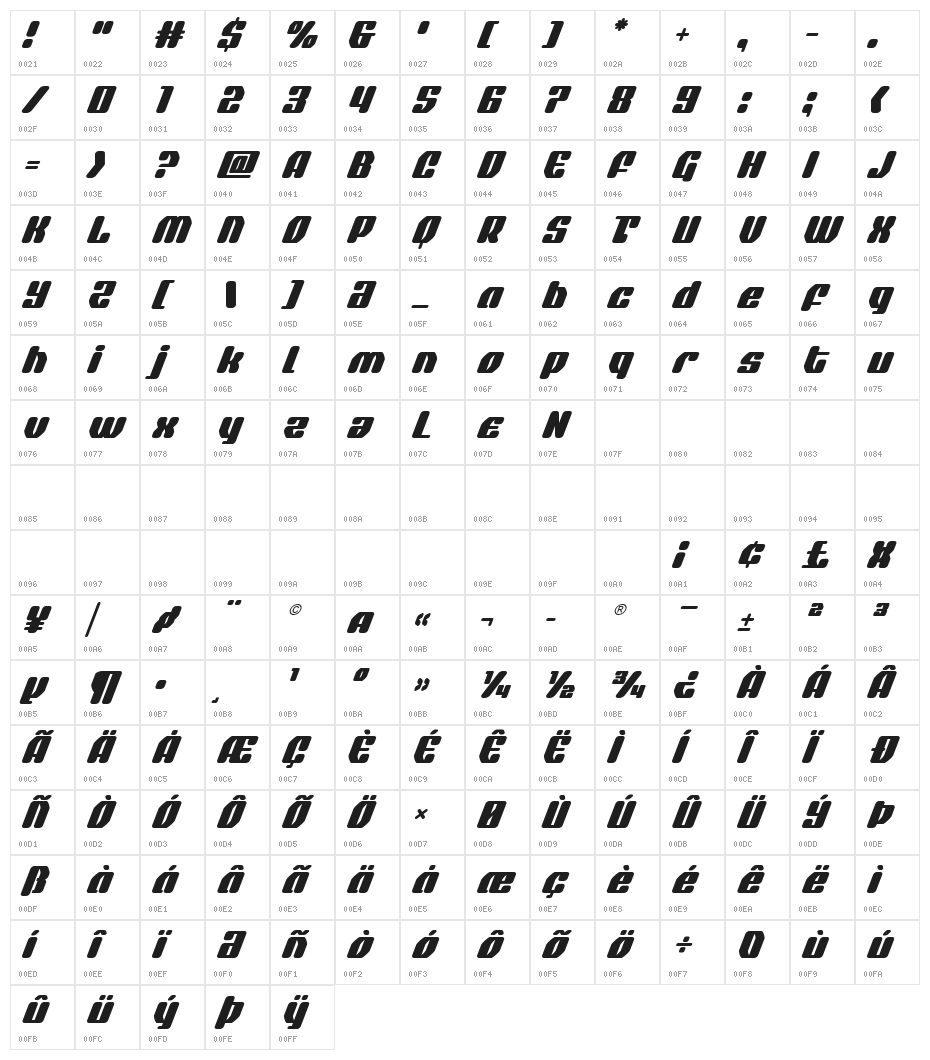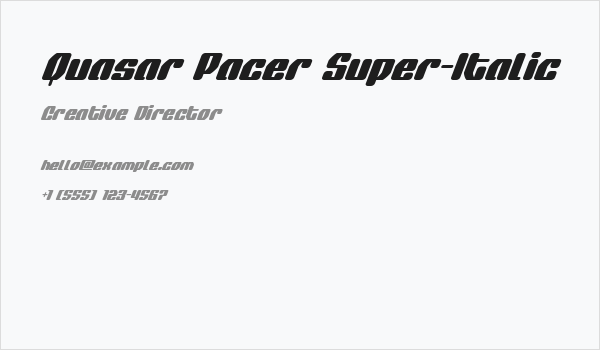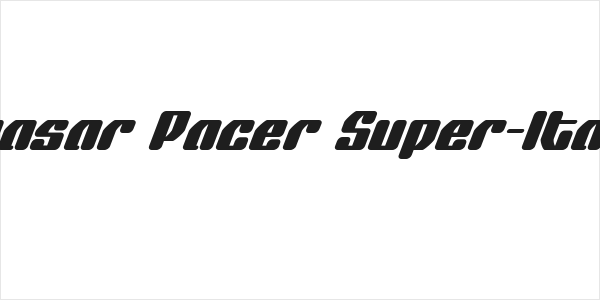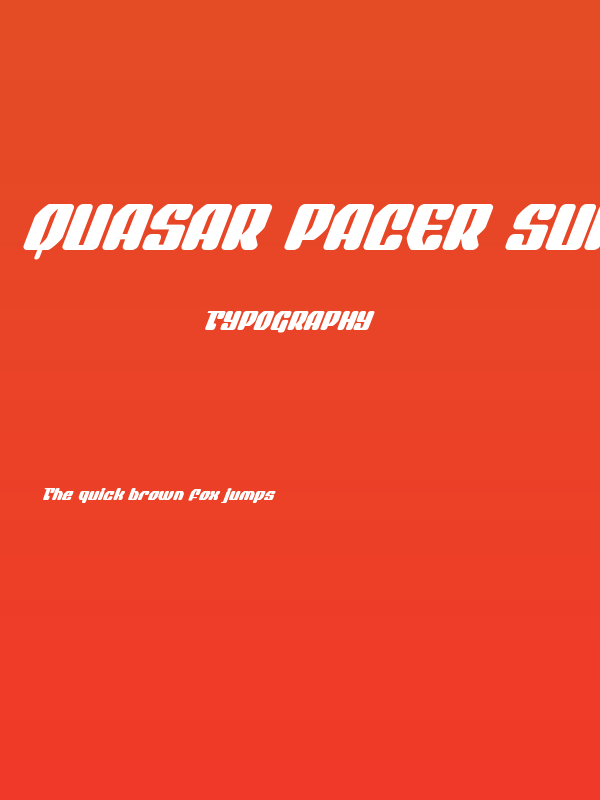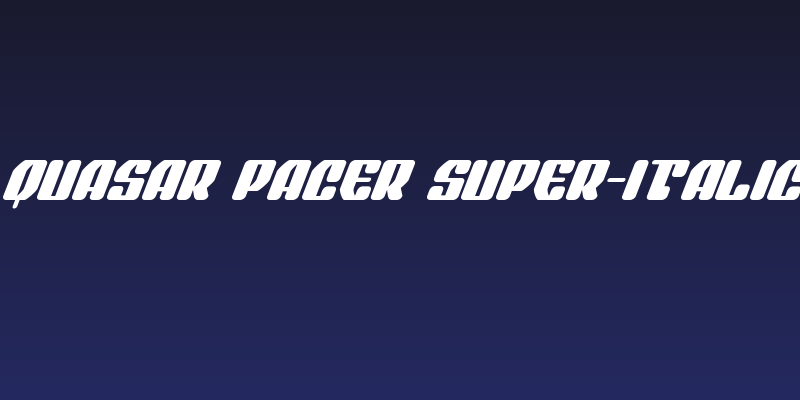
Quasar Pacer Super-Italic Font
Quasar Pacer Super-Italic Description
This font features a bold and dynamic style with a strong italic slant, giving it a sense of motion and energy. The characters are thick and robust, with a modern, futuristic appearance. The strokes are consistent in weight, providing a uniform look across all characters. The uppercase and lowercase letters are designed with a similar width, maintaining a cohesive visual flow. The numbers and special characters follow the same design principles, ensuring versatility and readability. The overall aesthetic is sleek and contemporary, making it suitable for projects that require a bold statement.
| Proposed Projects | Ideal for sports branding, technology logos, dynamic posters, and futuristic designs. |